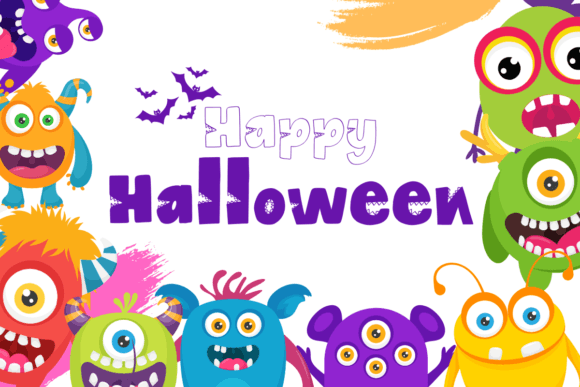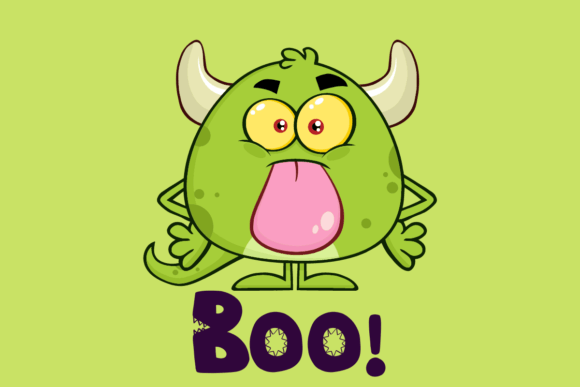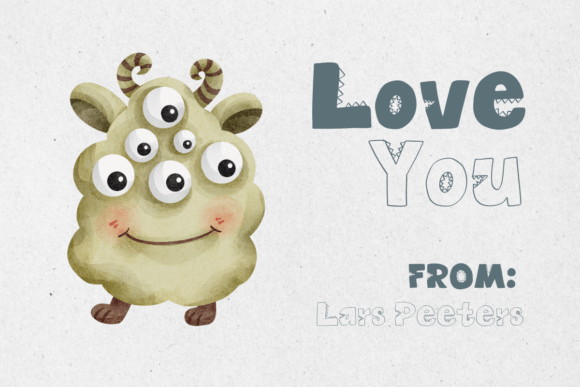
Introduction to Monster Font
Remember the thrill of finally finding that perfect design element to bring your creative project to life? It’s like stumbling upon a hidden treasure that elevates your entire vision. For many designers, this moment of discovery is what makes all the difference between a good design and a great one. And today, we’re excited to share a valuable find that’s sure to become a staple in your design toolkit: the Monster Font.
This adorable display font is a game-changer for any creative project that needs a dash of personality and whimsy. With its cute and goofy charm, Monster Font is the perfect addition to your design resource library, offering a high-quality solution that’s both authentic and easily legible. And the best part? It’s a free download, making it an accessible resource for designers of all levels.
Key Features of Monster Font
- High-quality design resource ideal for creative projects, including logos, posters, and more.
- Unique, bold design with a transparent background, making it easy to layer over other elements.
- Perfect for designers looking for a high-contrast, eye-catching font to add visual interest to their work.
- Designed at a large size (1024px) and high resolution (300 DPI), ensuring crisp and clear display on various devices.
- Monolinear design with clean lines, making it ideal for use in digital and print media.
- Includes a wide range of characters, including uppercase and lowercase letters, numbers, and punctuation marks.
Honest Review: Monster Font
As a designer, I’m always on the lookout for high-quality design resources to elevate my creative projects. Recently, I came across the Monster Font, and I’m excited to share my honest review.
What works well: ✨ The Monster Font offers a wide range of styles and sizes, making it a versatile design resource for any project. The font is also available for free download, which is a huge plus for designers on a budget. Additionally, the font features a transparent background, allowing for easy customization and integration with other design elements.
- Wide range of styles and sizes
To get the most out of the Monster Font, experiment with different font sizes, colors, and styles. You can also use it in combination with other design elements to create a unique and eye-catching look.
The Monster Font is perfect for a variety of creative projects, including social media graphics, posters, and infographics. Its high-quality design and transparent background make it easy to integrate with any design resource.
Alternatives to Monster Font
Comic Sans MS
Comic Sans MS is a playful, cursive font suitable for creative projects requiring a friendly tone. Use it for children’s books, advertisements, or social media graphics. It’s free to download and comes with a transparent background, making it easy to integrate into any design. While not as bold as Monster Font, Comic Sans MS offers a more approachable feel.
American Typewriter
American Typewriter is a high-quality, serif font that evokes a vintage feel. Use it for designs that require a classic, timeless look. This font is ideal for posters, brochures, and other print materials. It’s available for free download and offers a transparent background, making it a great alternative to Monster Font for designs that need a touch of elegance.
Impact
Impact is a sans-serif font known for its bold, condensed style. Use it for designs that require a strong, attention-grabbing look. This font is perfect for headlines, titles, and other creative projects where you need to convey a sense of urgency. While Impact is more dramatic than Monster Font, it lacks the playful feel of the original.
What is the recommended resolution for using Monster Font?
The recommended resolution for using Monster Font is 300 DPI or higher. This ensures that the font looks crisp and clear, even when scaled up or down. If you need to use the font at a lower resolution, you may experience some loss of quality or clarity. However, the font will still be usable and will not distort significantly.